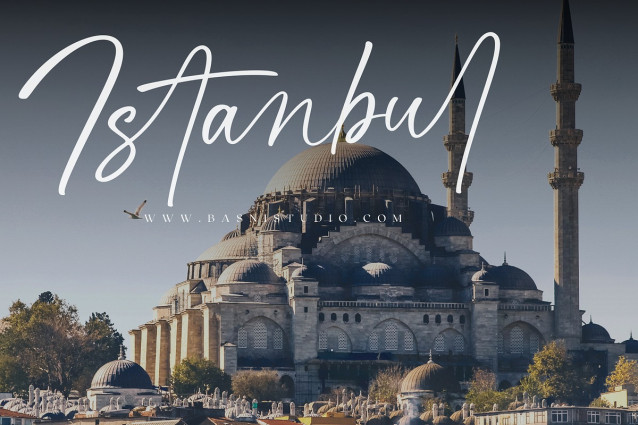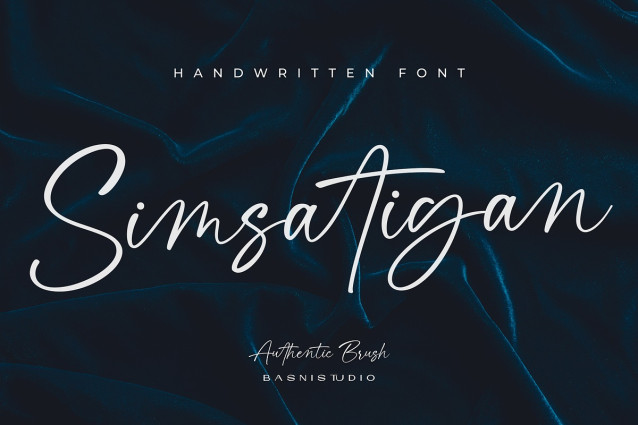
Simsatigan Font
Simsatigan Font – Handwritting Font Created with real pen strokes for a natural look and casual touch to everything from branding and social media to invitations and packaging.